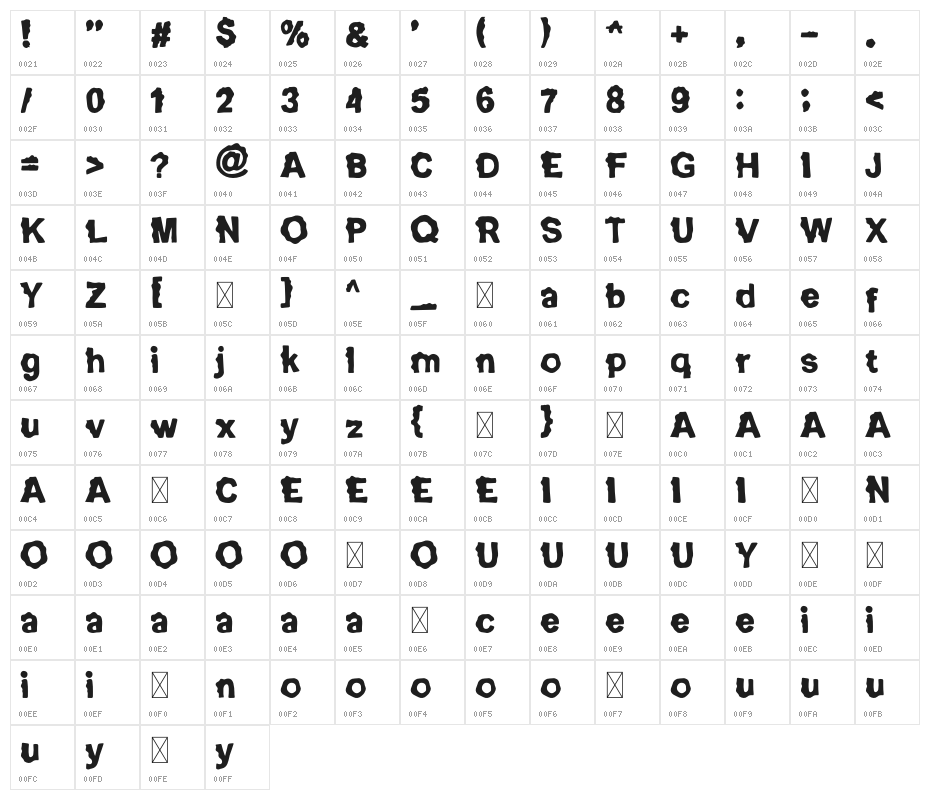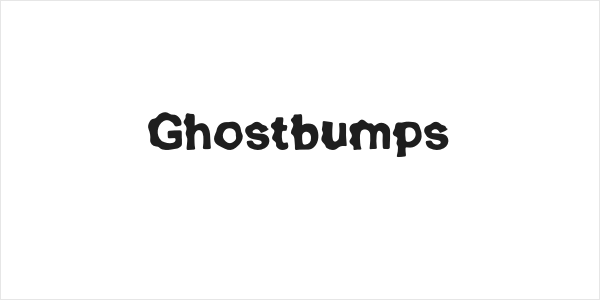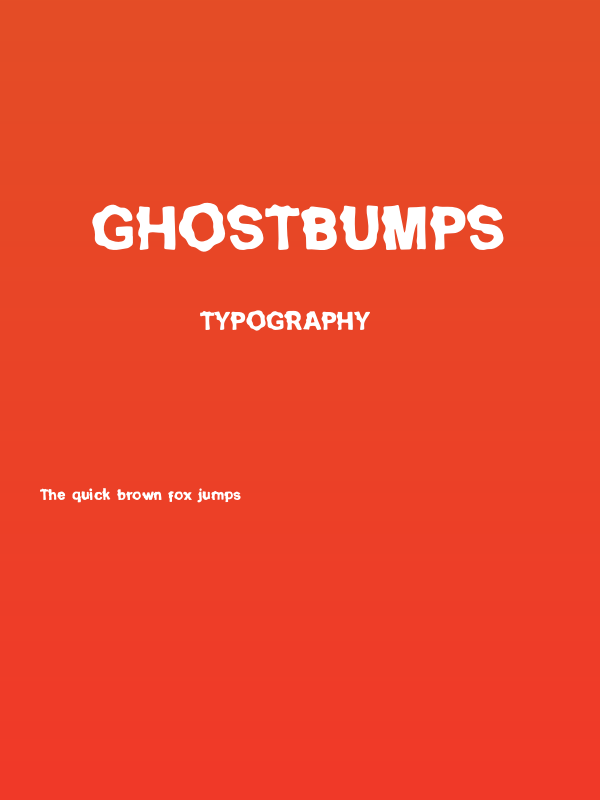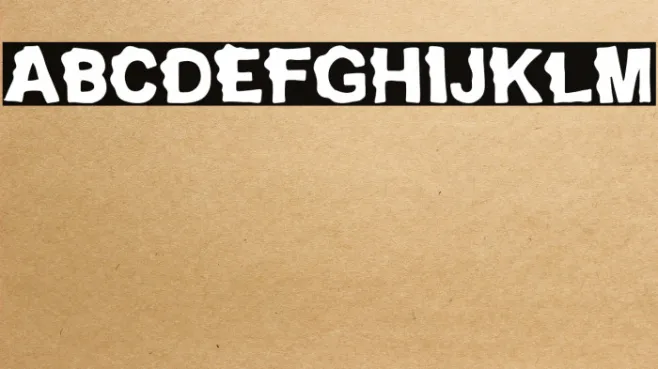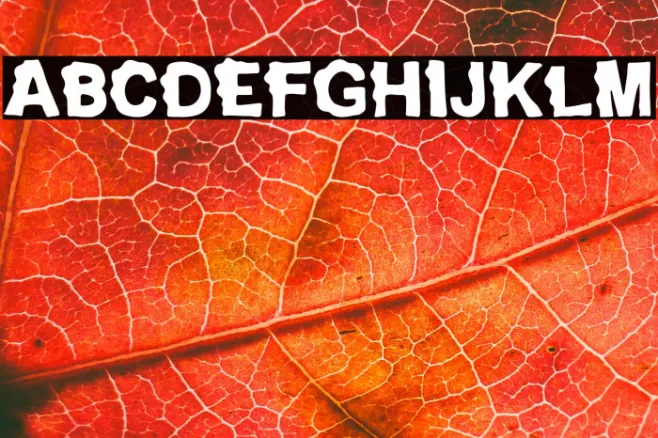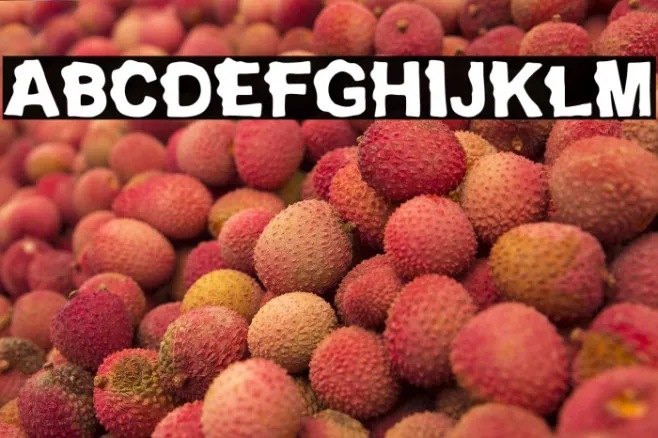
Ghostbumps Font
Ghostbumps Description
This font features a playful and slightly spooky design, with irregular, wavy edges that give it a ghostly appearance. The characters are bold and have a hand-drawn quality, making them stand out with a unique, textured look. The uppercase and lowercase letters maintain a consistent style, with the uppercase being slightly more pronounced. Numbers and special characters follow the same design ethos, ensuring a cohesive look across all glyphs. This font is perfect for Halloween-themed projects or any design that requires a fun, eerie touch.
| Proposed Projects | Ideal for Halloween invitations, spooky-themed posters, children's book titles, and playful branding. |